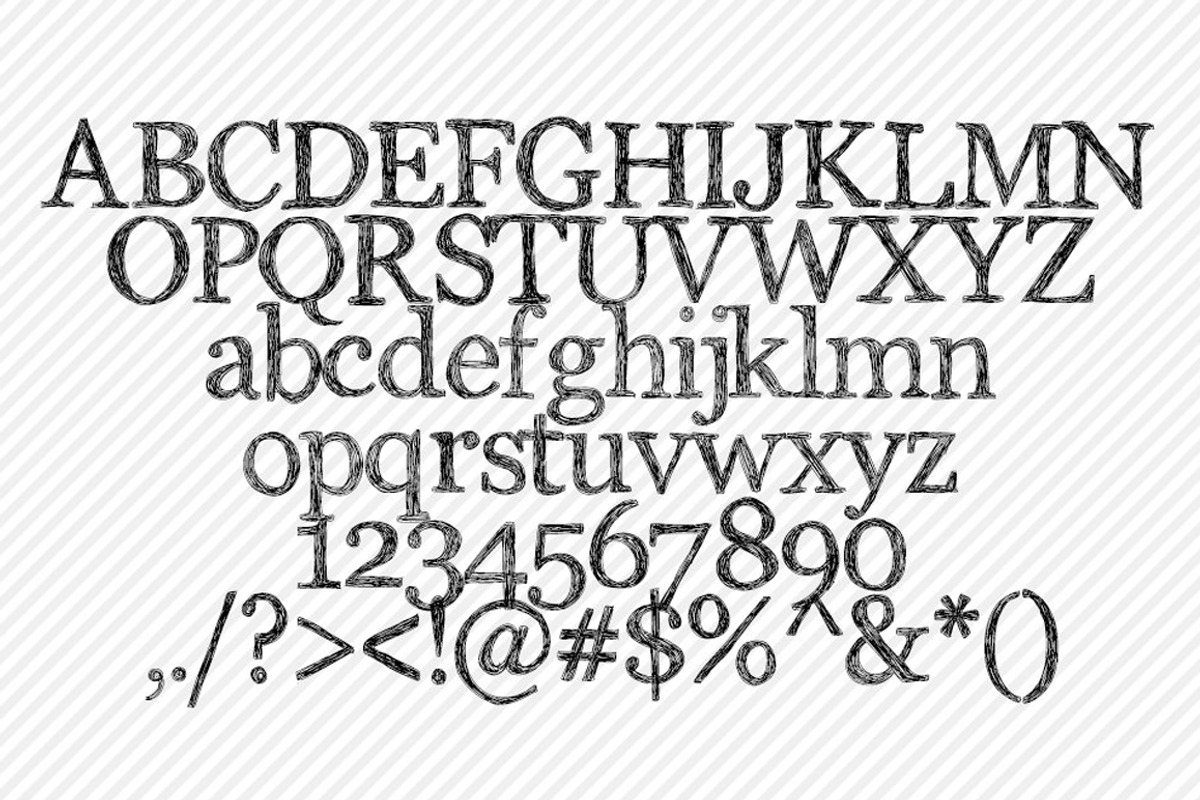
Spaghetti Hand Drawn Font
Spaghetti Hand Drawn Font by Polka Dot Pixels is a font selected for branding, posters, packaging, typography.
- upper and lowercase letters, numbers and punctuation included.
Why Spaghetti Hand Drawn Font is worth a look
Spaghetti Hand Drawn Font by Polka Dot Pixels fits naturally into Branding, posters, packaging, typography.